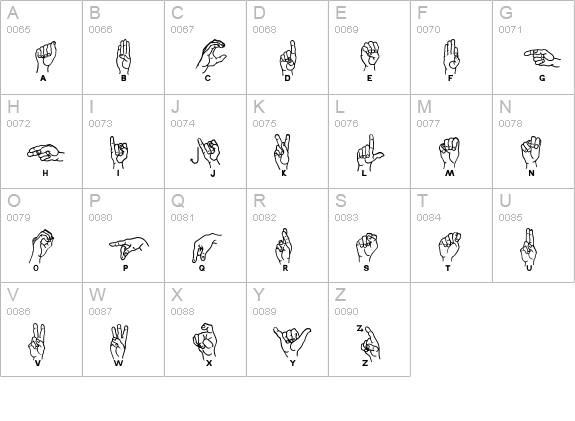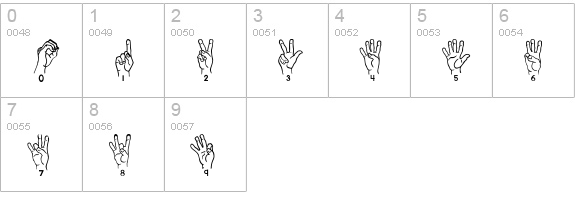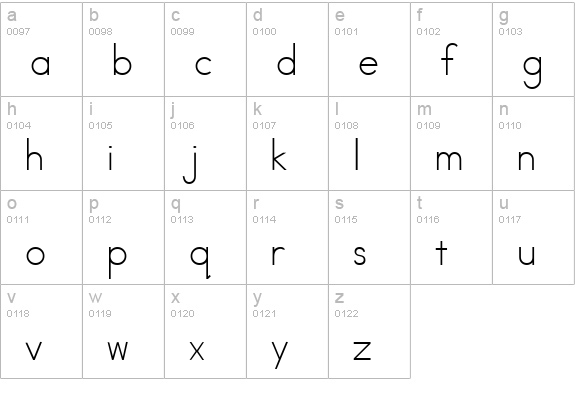
AbcAmSignLangLetter Font Details
Below you can preview AbcAmSignLangLetter in uppercase [A-Z], lowercase [a-z] and numbers [0-9]. You can also read the author's notes and license information before downloading.
Introducing AbcAmSignLangLetter font, a beautifully designed typeface that captures the elegance and fluidity of American Sign Language gestures. This unique font offers a creative way to incorporate sign language elements into your designs, adding a touch of inclusivity and accessibility. AbcAmSignLangLetter font features a collection of handcrafted letters that are inspired by the graceful movements of sign language. Each letter is meticulously designed to reflect the nuances and intricacies of ASL gestures, creating a visually stunning and expressive typeface. The best part? AbcAmSignLangLetter font is completely free to download at FontsMarket.com, making it accessible to designers, educators, and anyone looking to add a meaningful and artistic touch to their projects. Whether you're creating a poster, a logo, or a social media graphic, AbcAmSignLangLetter font offers a unique and engaging way to communicate with your audience. Download AbcAmSignLangLetter font today and start incorporating the beauty and creativity of American Sign Language into your designs!